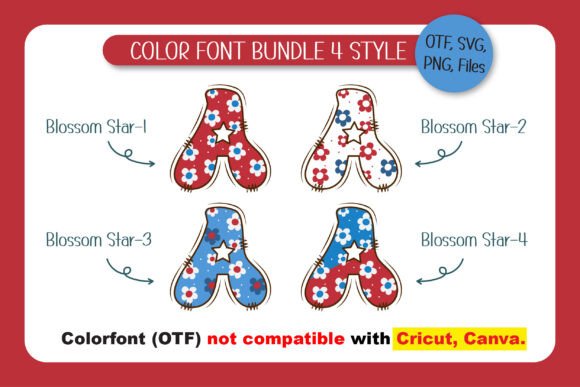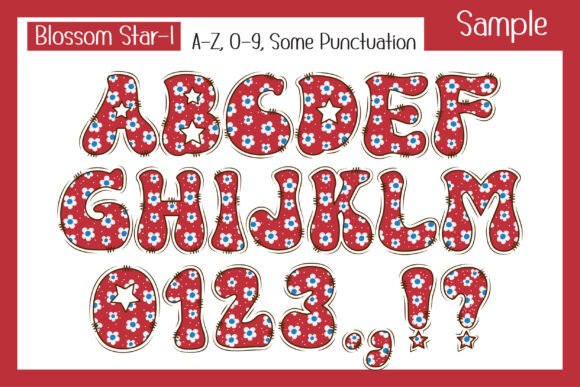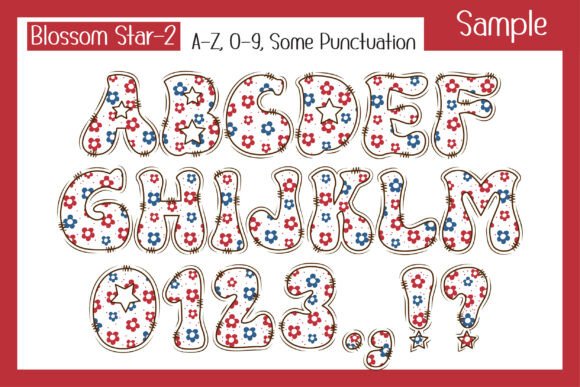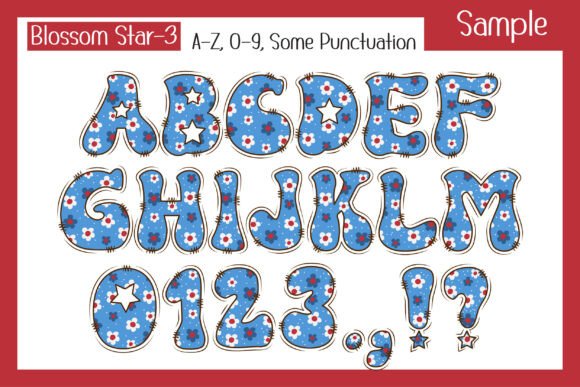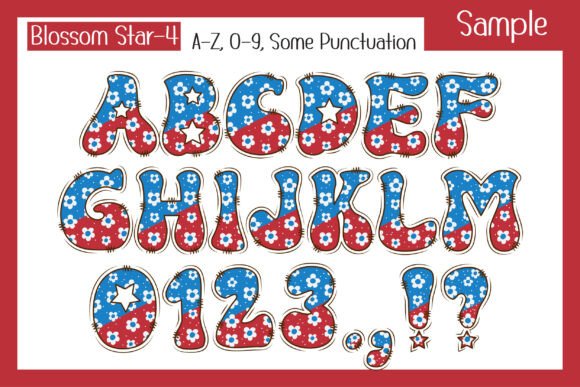
Get Ready to Unleash Your Creativity with Blossom Star Font
As the summer months approach, many of us start brainstorming ideas for our 4th of July celebrations. We want to create something truly special, a design that captures the essence of freedom and patriotism. For designers, this is the perfect opportunity to get creative and experiment with new fonts. That’s where the “Blossom Star Font” comes in – a beautiful, hand-drawn typeface that perfectly blends festive charm with patriotic spirit.
This 4-color font is designed to evoke the feeling of celebration and joy, with each letter featuring a delicate floral pattern and select characters adorned with star-shaped details. Whether you’re designing a patriotic poster, a T-shirt, or party invitation, the “Blossom Star Font” is sure to add a touch of elegance and style to your creation.
Blossom Star Font Key Features
- Font Family: Blossom Star, with multiple font styles (Regular, Bold, Italic, Bold Italic)
- Unique Characteristic: Hand-drawn design with floral elements, giving a whimsical and elegant feel to text
Blossom Star Font Review
Overall, I think Blossom Star Font is a sweet and whimsical font that could add a nice touch to your designs. Here are some things that work well: ✨
- Unique and playful design: The font’s floral and star-inspired elements give it a one-of-a-kind look that’s perfect for creative projects.
- High-quality vector files: The font comes in high-resolution vector formats, making it easy to scale up or down without losing any quality.
- Good for titles and headings: The font’s large, bold letters make it ideal for use in titles and headings where you want to draw attention.
However, there are a few limitations to keep in mind: ⚠️
- May be too playful for formal projects: The font’s whimsical design might not be suitable for formal or professional projects where a more serious tone is needed.
- Not ideal for body text: The font’s large size and bold style can make it difficult to read in long blocks of text.
Overall, I think Blossom Star Font is a great choice for designers who want to add a touch of whimsy and creativity to their projects. Just be mindful of the font’s limitations and use it accordingly.
The Blossom Star Font is perfect for:
- Creative projects that require a whimsical touch.
- Designing invitations, flyers, and social media posts.
- Adding a touch of elegance to business cards and logos.
Alternatives to Blossom Star Font for Designers
Great Vibes Font is a modern, elegant script font perfect for creative and artistic projects. It’s ideal for use in headings, titles, and quotes. When to use: For projects that require a touch of sophistication and whimsy.
Comparison to Blossom Star Font: While Blossom Star Font has a more whimsical and playful feel, Great Vibes Font is more refined and sophisticated. Great Vibes Font is better suited for formal and professional projects.
Carolyna Pro Font is a elegant, modern script font ideal for luxury and high-end branding. It’s perfect for use in titles, headings, and packaging design. When to use: For projects that require a sense of luxury and sophistication.
Comparison to Blossom Star Font: Carolyna Pro Font has a more refined and sophisticated feel compared to Blossom Star Font. Carolyna Pro Font is better suited for high-end branding and luxury projects.
Alex Brush Font is a elegant, handwritten font perfect for creative and artistic projects. It’s ideal for use in titles, headings, and quotes. When to use: For projects that require a touch of elegance and sophistication.
Comparison to Blossom Star Font: While Blossom Star Font has a more whimsical and playful feel, Alex Brush Font is more refined and elegant. Alex Brush Font is better suited for formal and professional projects.